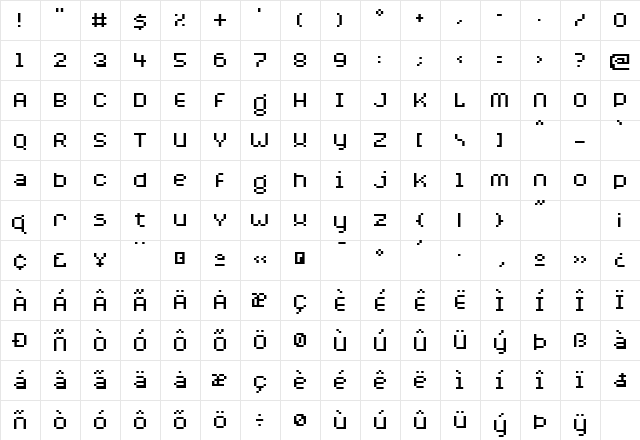
Bylinear Regular
Design Context for Bylinear Typeface
Bylinear offers clean, dependable letterforms without strong stylistic allegiance, making it a practical choice for designers who need flexibility.
Pro Tip: Use Bylinear in both headline and body roles to test its range before committing to a single application.